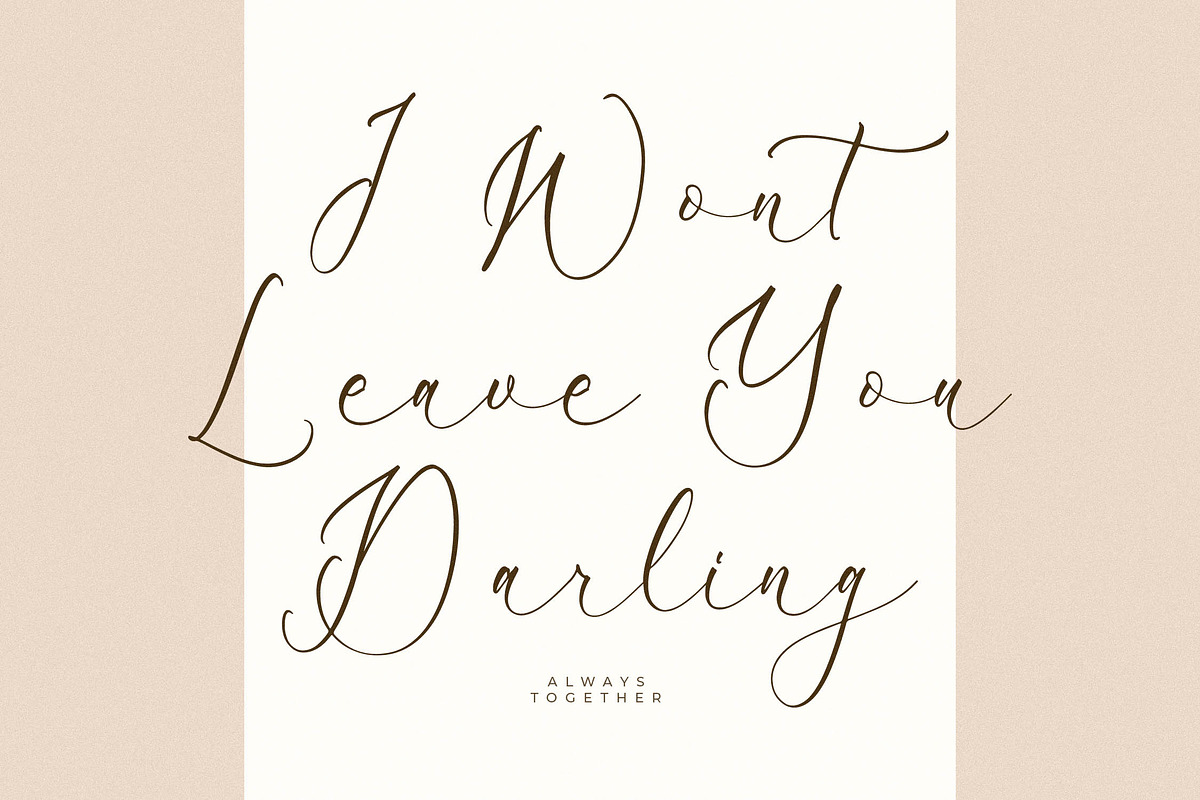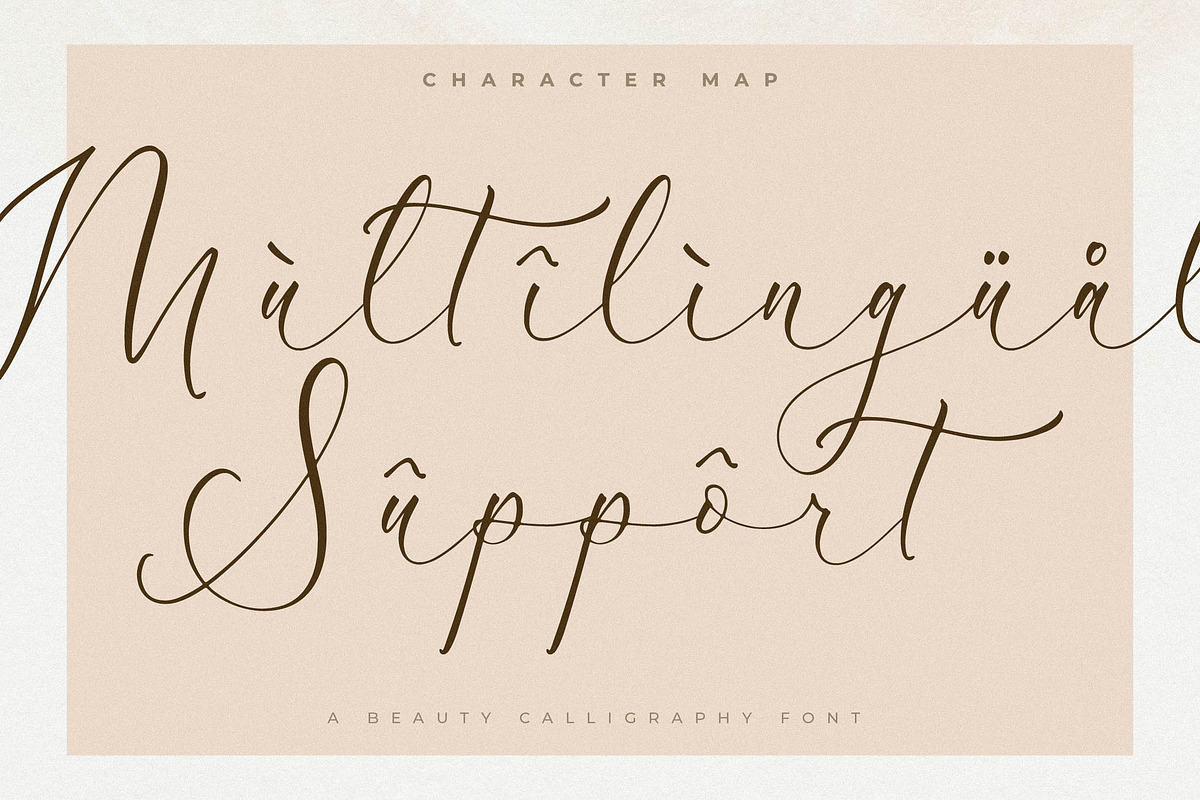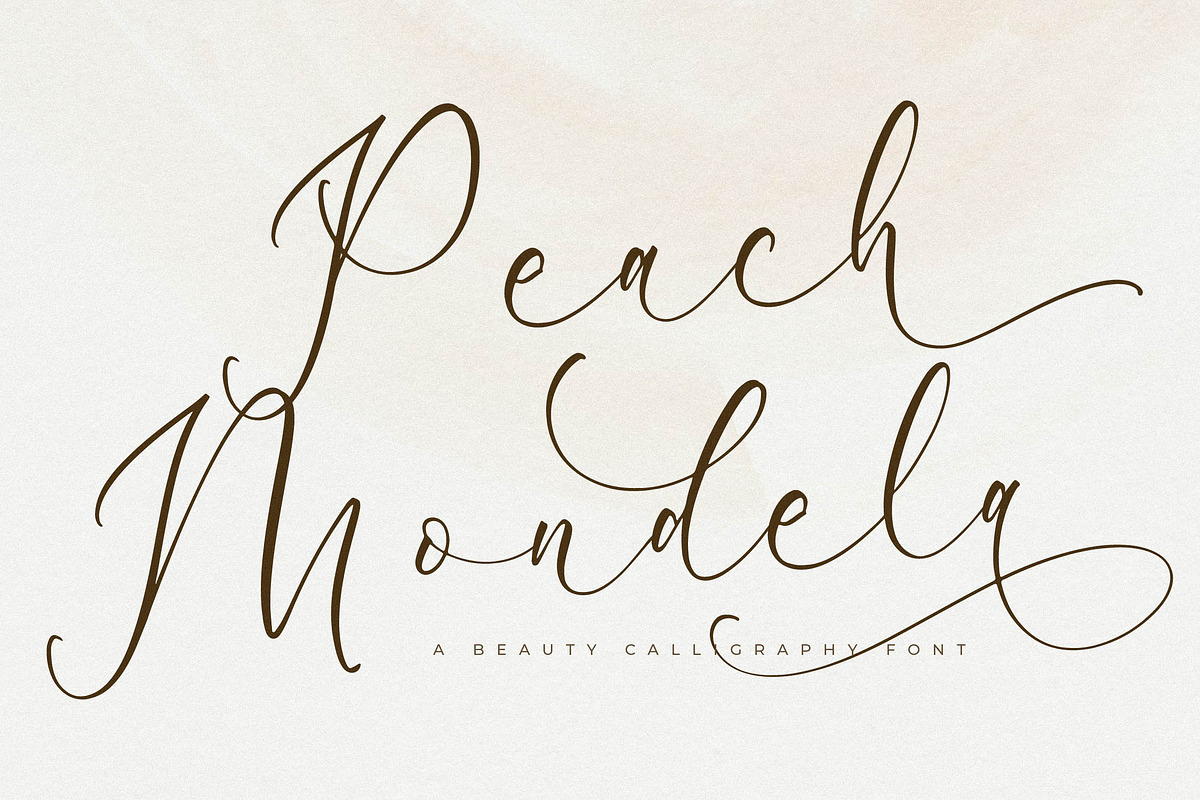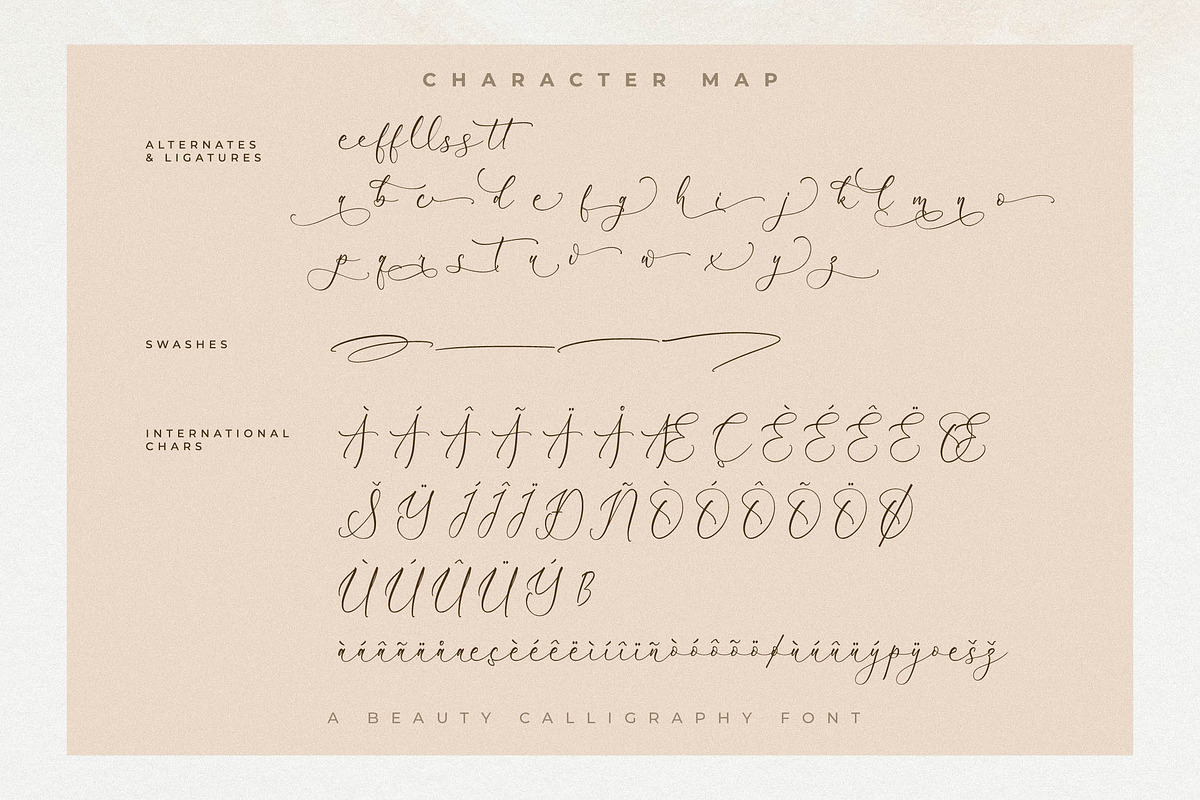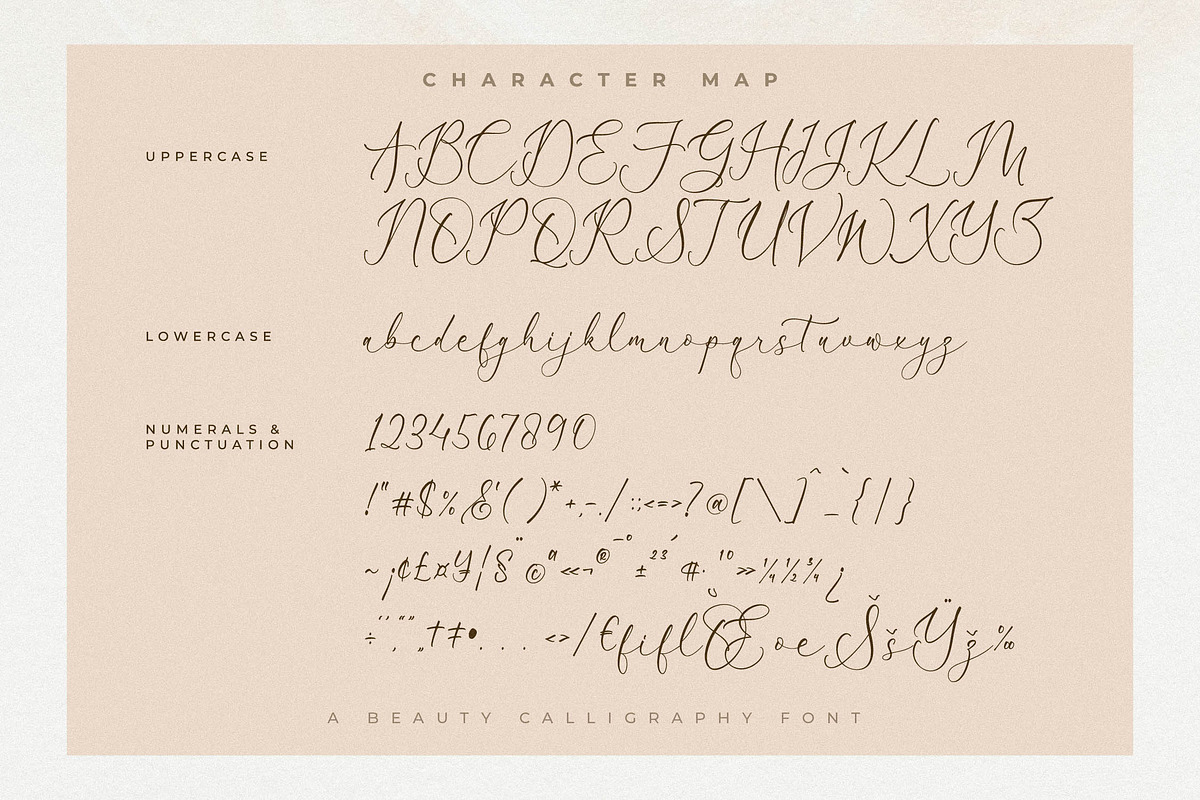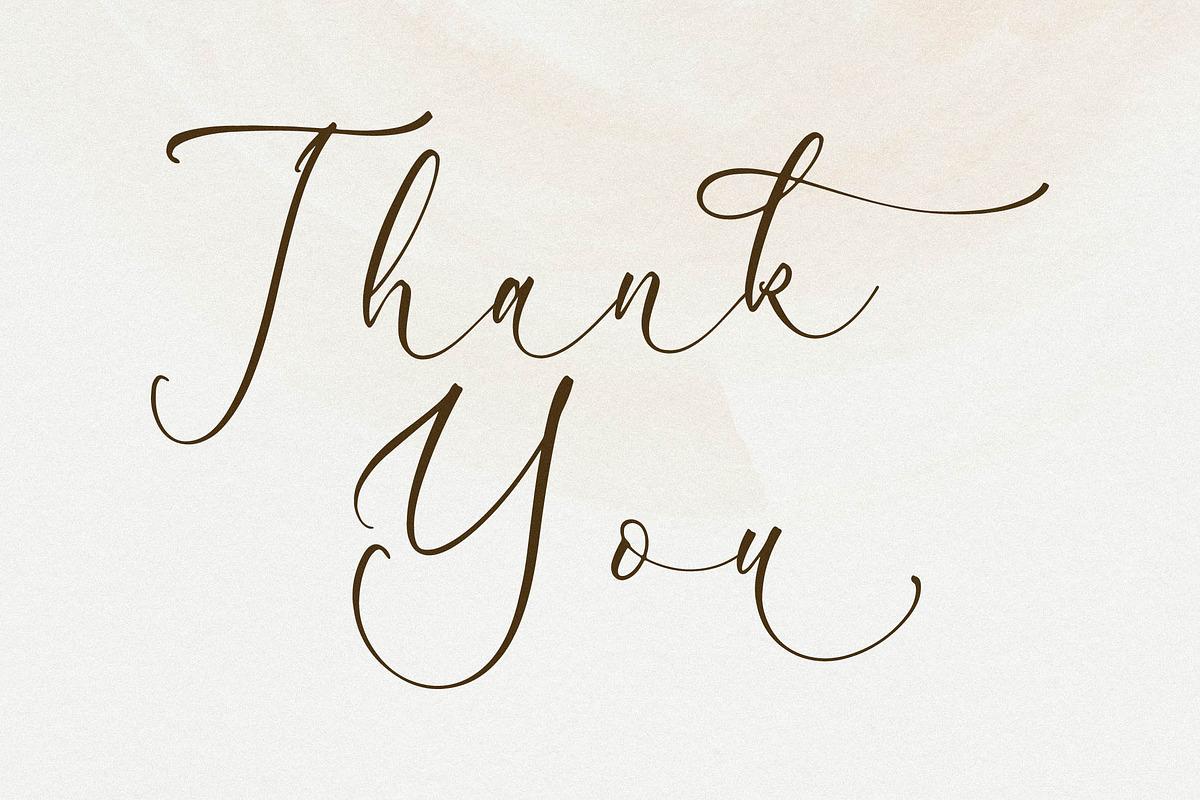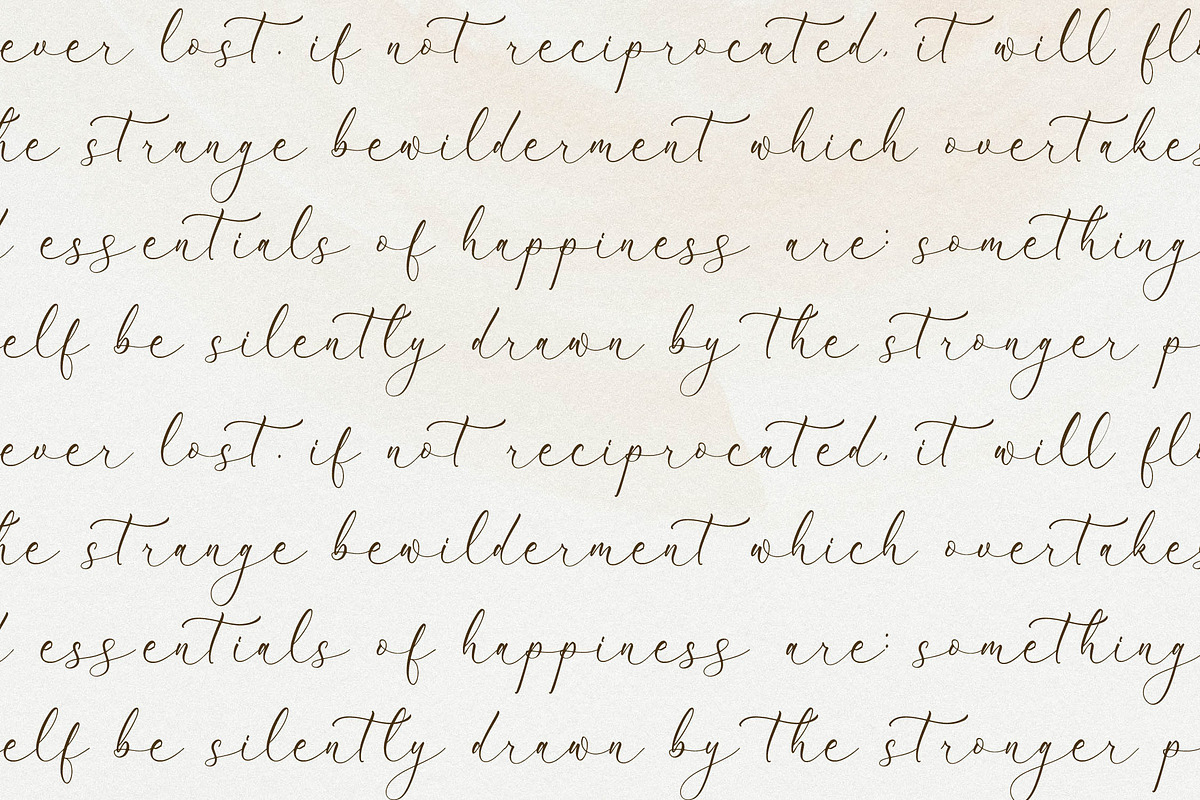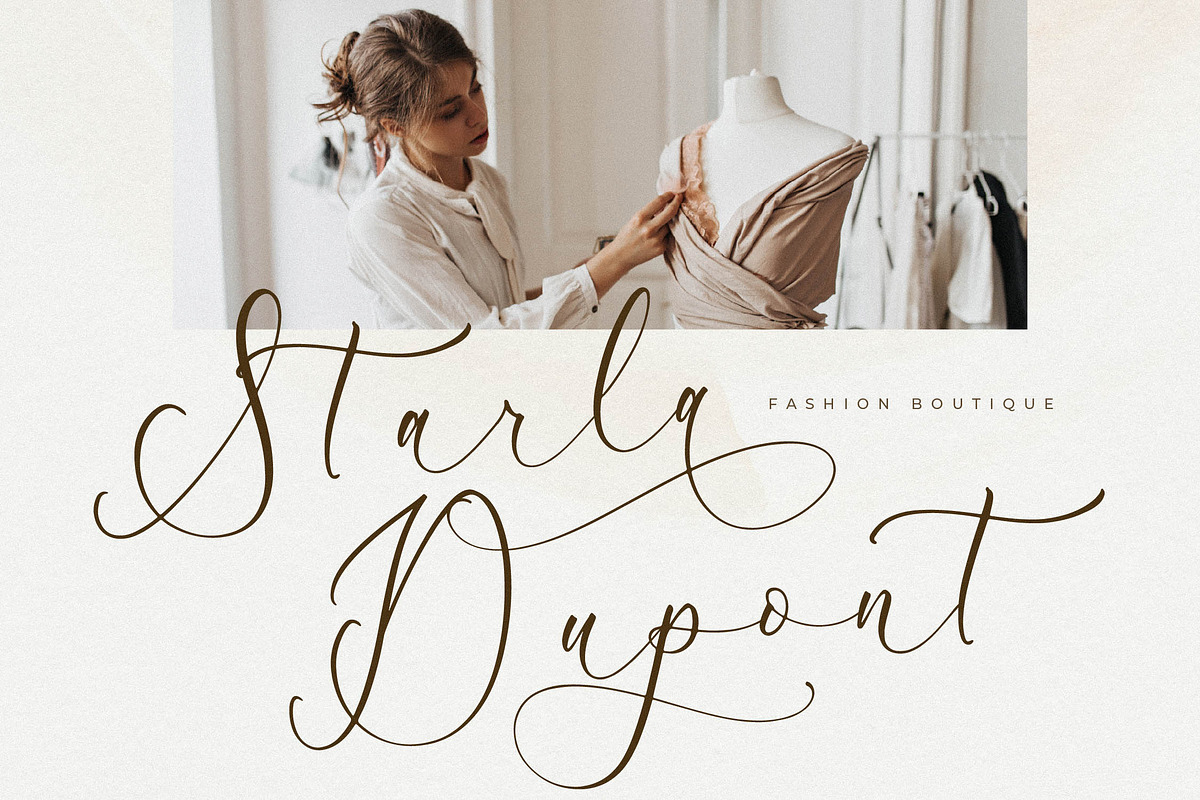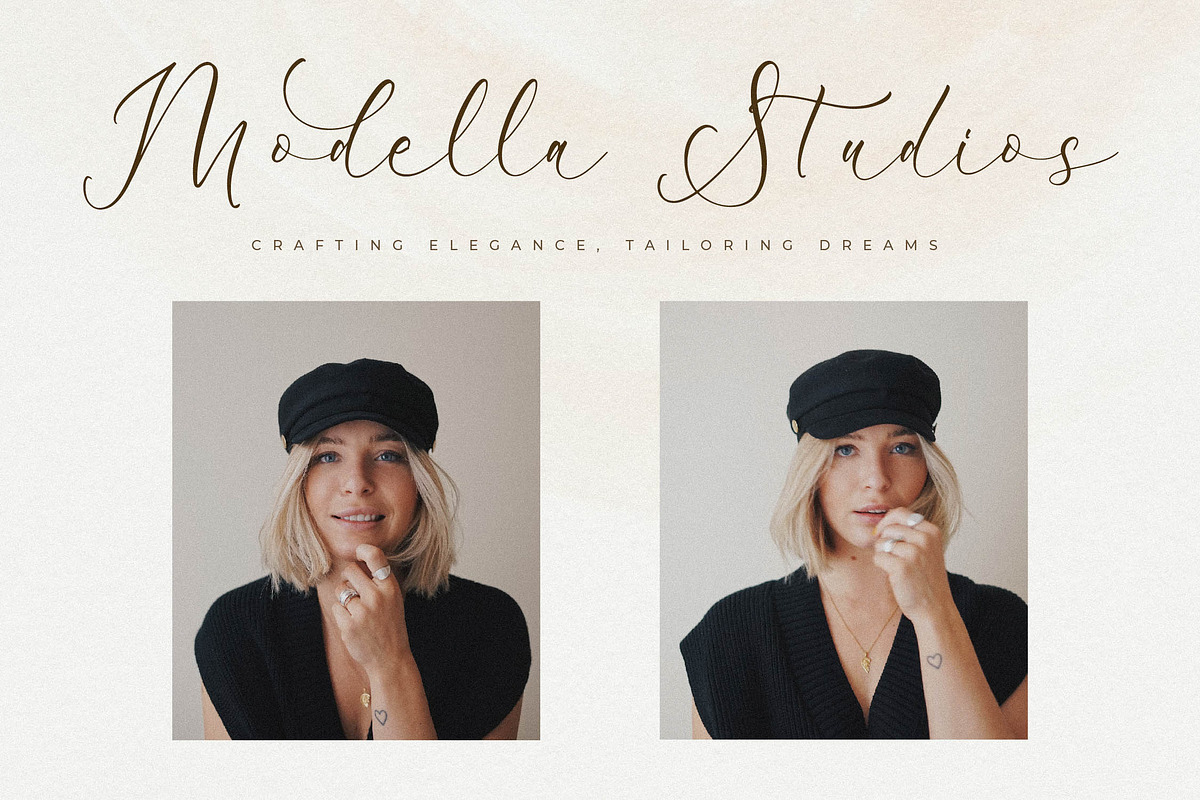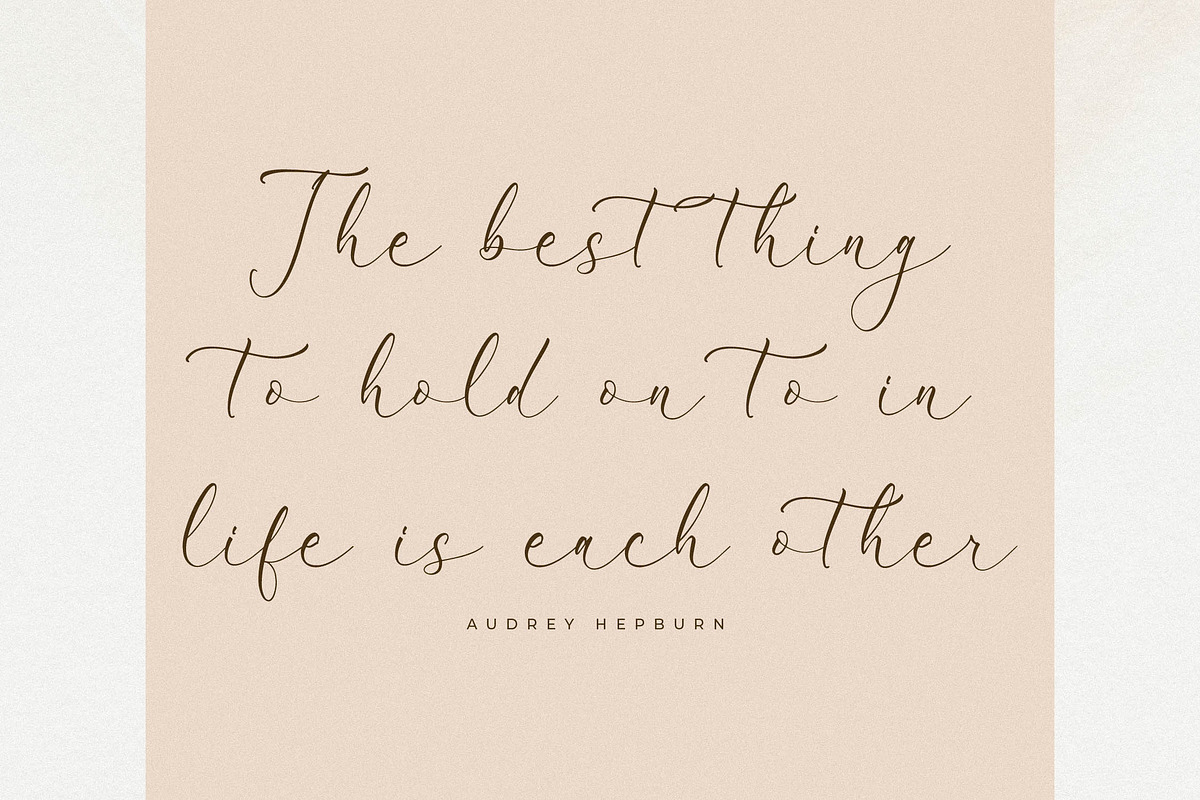
Peach Mondela Beauty Calligraphy
Proudly present Peach Mondela – Beauty Calligraphy Font , created by Storytype, A luxury script that has own unique style & modern look. This typeface is perfect for an elegant & luxury logo, book or movie title design, fashion brand, magazine, clothes, lettering, quotes, and so much more.